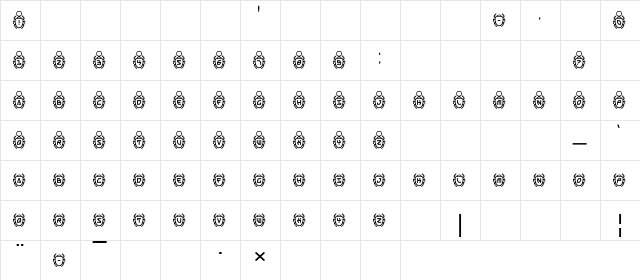
Scarab Regular Free Font
Scarab Regular
Foundry: Monotype Typography
Designer: Monotype Type Drawing Office - Robin Nicholas, Patricia Saunders 1982
Design Context for Scarab
Scarab is a composed and adaptable typeface that performs quietly and consistently across a wide range of design contexts.